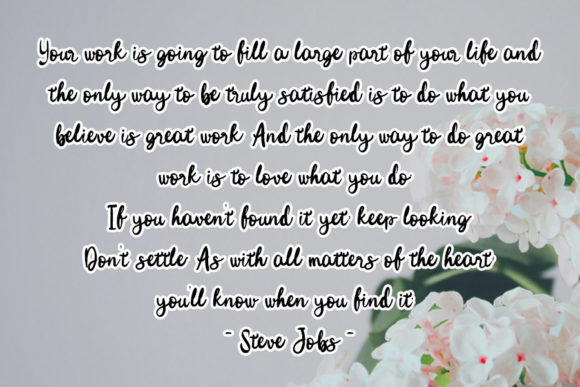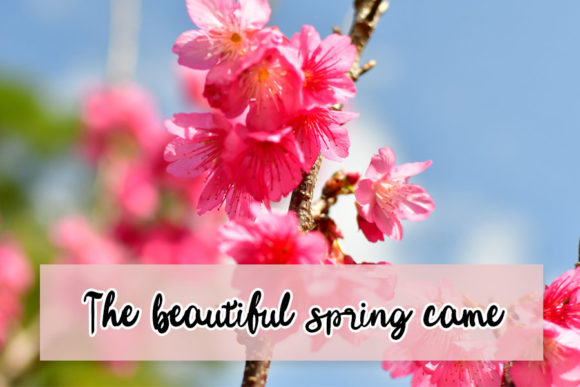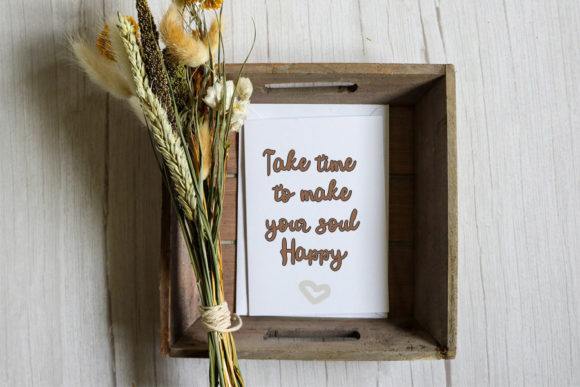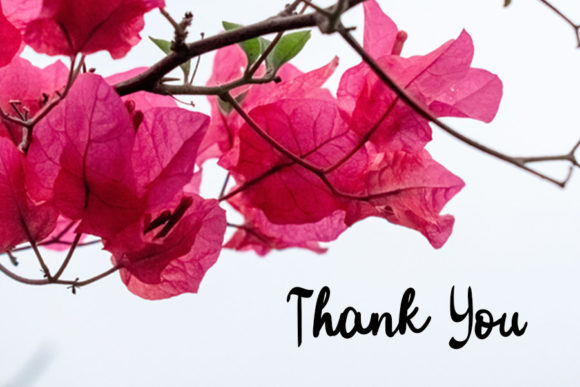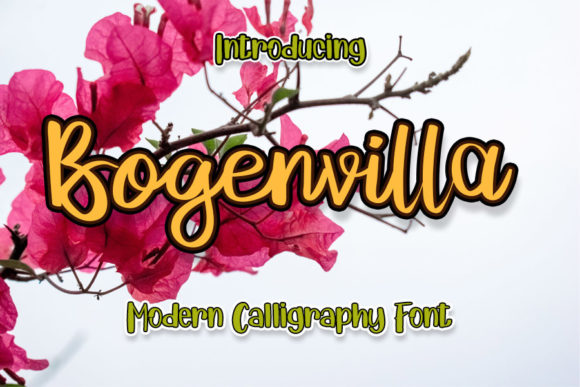
Bogenvilla Font: The Perfect Choice for Romantic and Elegant Designs
Are you a designer or crafter looking for a font that exudes romance and elegance? Look no further than Bogenvilla Font! This beautiful handwritten font is perfect for creating stunning wedding invitations, cards, and other designs that require a personal touch. In this article, we’ll take a closer look at Bogenvilla Font and explore its features, benefits, and uses.
What is Bogenvilla Font?
Bogenvilla Font is a romantic and elegant handwritten font that is designed to add a touch of sophistication to your designs. Its dainty and joyful feel makes it ideal for creating beautiful wedding invitations, cards, and other romantic designs. The font is carefully crafted to provide a unique and personalized look that will make your designs stand out.
Features of Bogenvilla Font
Bogenvilla Font comes with several features that make it a great choice for designers and crafters. Some of its key features include:
- Romantic and Elegant Design: Bogenvilla Font has a beautiful, flowing design that exudes romance and elegance.
- Handwritten Style: The font has a handwritten style that gives it a personal and unique touch.
- Dainty and Joyful Feel: The font has a dainty and joyful feel that makes it perfect for creating happy and celebratory designs.
- Easy to Read: Despite its elegant design, Bogenvilla Font is easy to read, making it perfect for use in body text.
Benefits of Using Bogenvilla Font
There are several benefits to using Bogenvilla Font in your designs. Some of the key benefits include:
- Unique and Personalized Look: Bogenvilla Font provides a unique and personalized look that will make your designs stand out.
- Perfect for Romantic Designs: The font is perfect for creating romantic designs, such as wedding invitations and cards.
- High-Quality Design: The font is designed to high-quality standards, ensuring that it will look great in all your designs.
Uses of Bogenvilla Font
Bogenvilla Font is a versatile font that can be used in a variety of designs. Some of the most popular uses for the font include:
- Wedding Invitations: The font is perfect for creating beautiful wedding invitations that will set the tone for your special day.
- Cards: Bogenvilla Font is great for creating romantic cards for special occasions, such as Valentine’s Day and anniversaries.
- Stationery: The font can be used to create beautiful stationery, such as letterheads and notecards.
- Digital Designs: Bogenvilla Font can be used in digital designs, such as social media graphics and blog posts.
Tips for Using Bogenvilla Font
Here are a few tips for using Bogenvilla Font in your designs:
- Use it with Other Fonts: Bogenvilla Font can be paired with other fonts to create a unique and interesting look.
- Experiment with Colors: The font looks great in a variety of colors, so don’t be afraid to experiment and find the perfect color for your design.
- Use it in Combination with Images: Bogenvilla Font can be used in combination with images to create a beautiful and eye-catching design.
Bogenvilla Font is a beautiful and elegant handwritten font that is perfect for creating romantic and personalized designs. Its dainty and joyful feel makes it ideal for use in wedding invitations, cards, and other celebratory designs. With its easy-to-use design and high-quality standards, Bogenvilla Font is a great choice for designers and crafters looking to add a touch of sophistication to their designs.